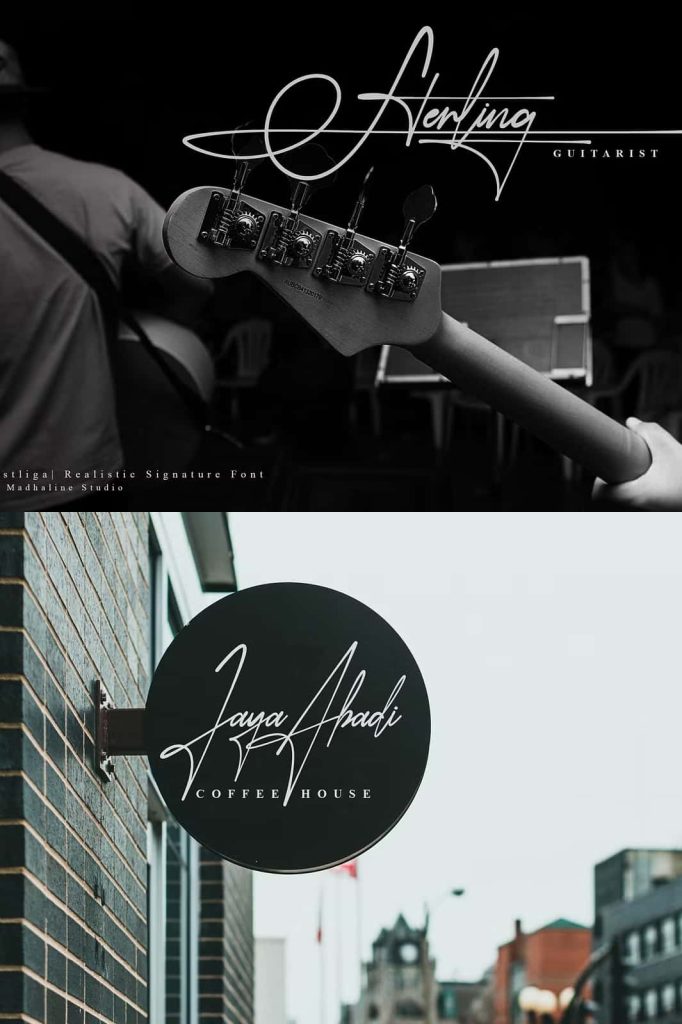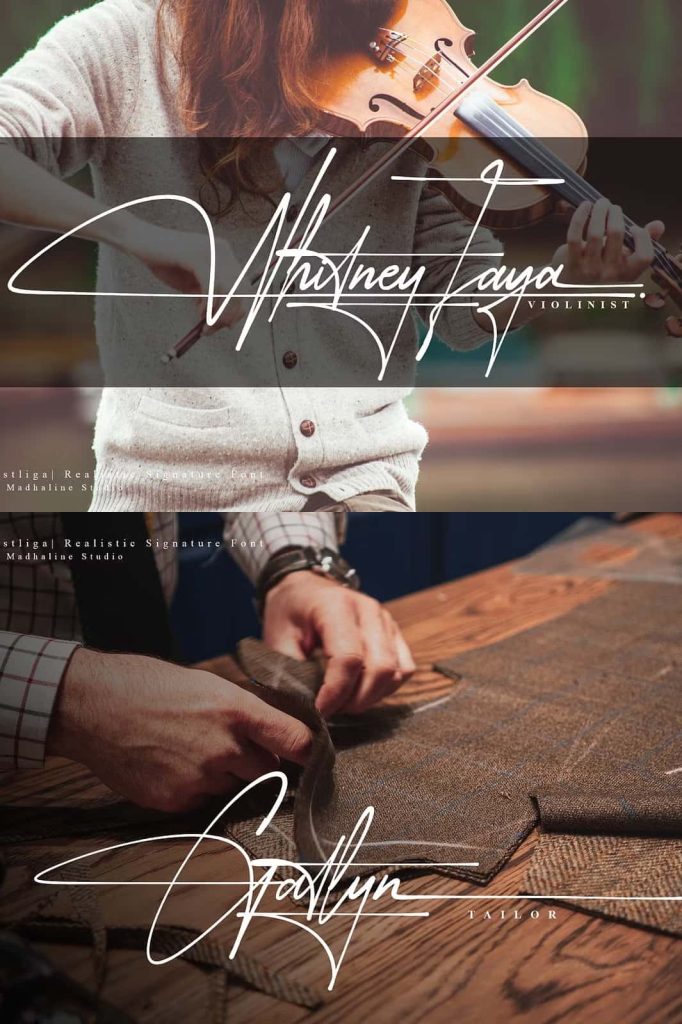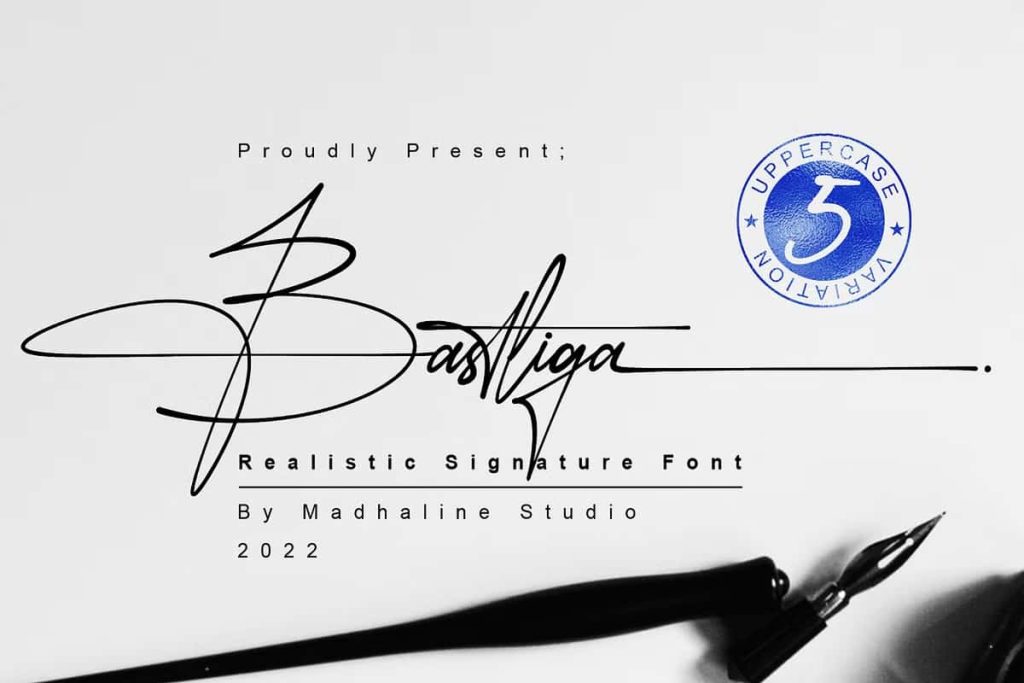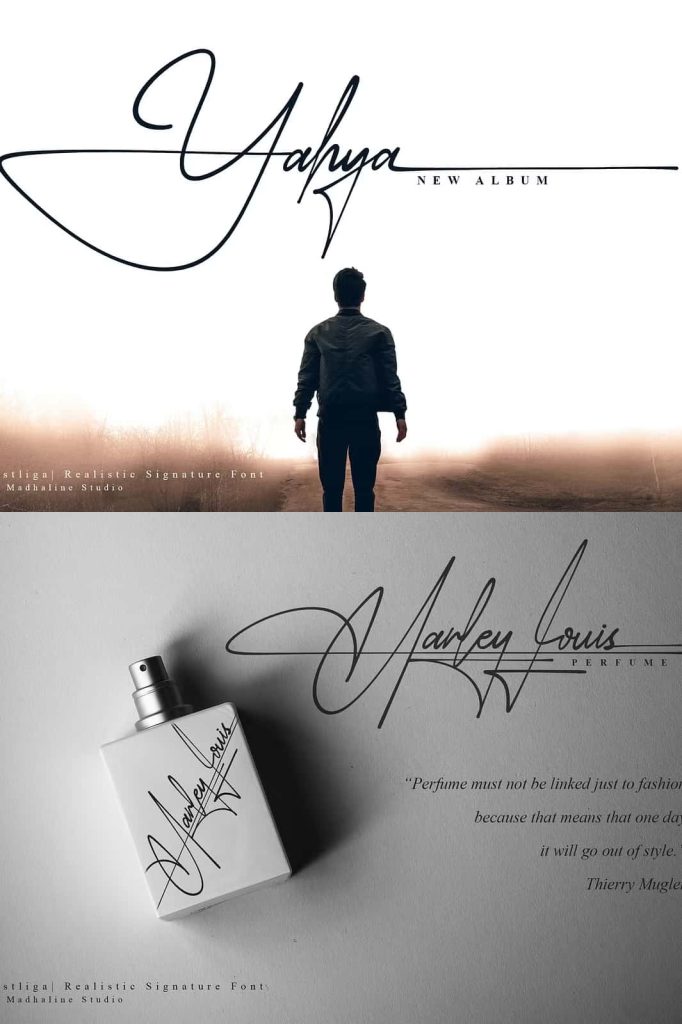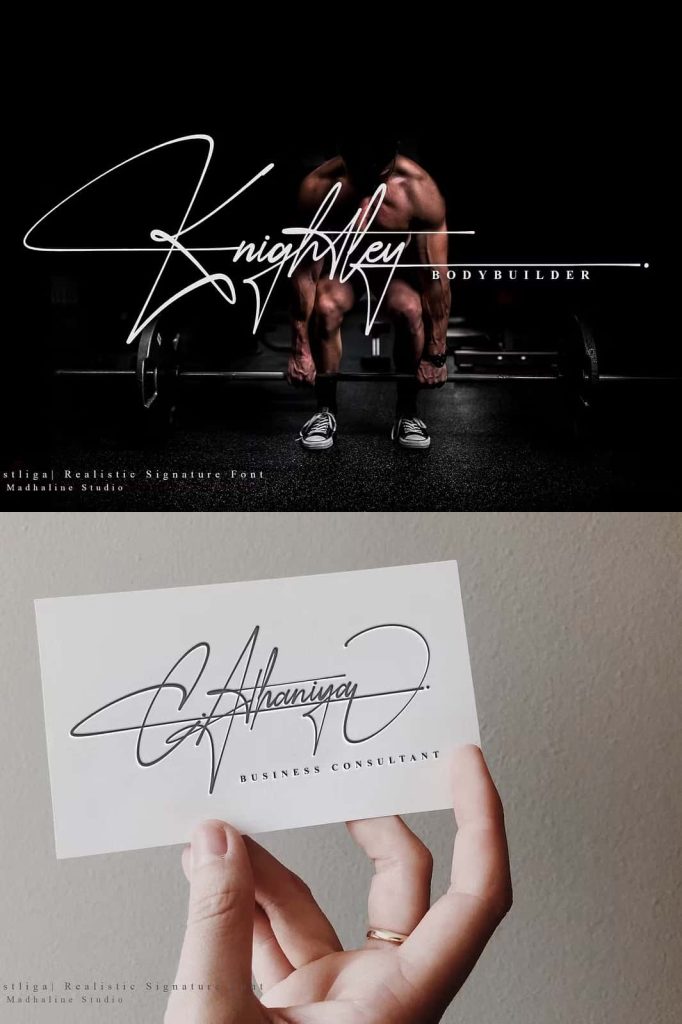
Bastliga Signature Font
Bastliga is a sophisticated handwritten signature font designed to deliver elegance, authenticity, and timeless style. Carefully created by hand, this premium typeface captures the natural flow of a genuine handwritten signature while incorporating refined modern details that make it suitable for professional branding and creative design projects.
Unlike ordinary script fonts, Bastliga preserves the subtle imperfections and smooth movement found in real handwriting. Every letter has been thoughtfully crafted to create an authentic signature appearance, allowing designers to produce work that feels personal, luxurious, and highly professional. Whether you’re building a premium brand identity, designing elegant wedding invitations, or adding a stylish watermark to photography, Bastliga provides the perfect finishing touch.
Its graceful strokes, balanced proportions, and natural handwriting style make Bastliga a versatile typeface that enhances both digital and print projects with effortless sophistication.
A Beautifully Handwritten Signature Typeface
Bastliga was created with the goal of replicating the elegance of a genuine handwritten signature. Every character has been manually drawn to preserve the natural rhythm, movement, and individuality that make handwritten typography so appealing.
Rather than appearing mechanical or overly polished, Bastliga embraces subtle organic details that give every word warmth and authenticity. This handcrafted approach allows your designs to communicate professionalism while maintaining a personal and approachable feel.
The result is a signature font that looks refined enough for luxury branding while remaining versatile enough for everyday creative projects.
Modern Elegance with Timeless Appeal
Bastliga blends classic handwritten beauty with contemporary design principles. The flowing letterforms create an elegant visual rhythm that complements modern branding, minimalist layouts, and luxury marketing materials.
Its clean structure and graceful curves help establish a premium appearance without becoming overly decorative. This balance makes Bastliga suitable for businesses, entrepreneurs, photographers, and designers who want typography that feels stylish, confident, and sophisticated.
Whether displayed on business cards, websites, or premium packaging, Bastliga consistently communicates quality and attention to detail.
Perfect for Luxury Branding
Typography plays an essential role in building memorable brand identities, and Bastliga provides the elegance needed to create a lasting impression. Its authentic handwritten style helps businesses establish trust while communicating creativity and exclusivity.
This signature font is an excellent choice for:
- Luxury brand identities
- Business logos
- Fashion branding
- Beauty product packaging
- Jewelry branding
- Perfume labels
- Boutique businesses
- Personal branding
- Creative agencies
- Lifestyle brands
The font pairs beautifully with modern serif and minimalist sans serif typefaces, allowing designers to create sophisticated branding systems with ease.
Ideal for Photography Watermarks
Photographers often require a signature font that reflects professionalism without distracting from their work. Bastliga offers the perfect solution with its natural handwritten appearance and elegant flow.
Its refined style creates tasteful watermarks that protect images while reinforcing your personal brand. Whether used on wedding photography, portrait sessions, travel photography, or commercial work, Bastliga adds a polished and recognizable signature that complements every image.
The authentic handwritten look also helps establish a stronger connection between photographers and their clients.
Versatile for Creative Projects
Bastliga adapts effortlessly to a wide variety of creative applications. Its elegant signature style enhances both formal and casual projects, making it a valuable addition to any designer’s font collection.
Use Bastliga for:
- Wedding invitations
- Save the date cards
- Greeting cards
- Luxury packaging
- Product labels
- Stationery design
- Certificates
- Business cards
- Website headers
- Blog graphics
- Social media content
- Instagram quotes
- Advertising campaigns
- Editorial layouts
- Book covers
- Event branding
- Merchandise designs
- Promotional materials
- Personalized gifts
- Creative portfolios
Designed for Print and Digital Media
Bastliga performs beautifully across both digital and printed formats. Its carefully balanced spacing and smooth letter connections ensure excellent readability while maintaining its elegant handwritten personality.
Whether displayed on websites, product packaging, invitations, magazines, promotional materials, or social media graphics, the font consistently delivers professional results.
If you’re searching for a signature font that delivers luxury, authenticity, and timeless style, Bastliga is a valuable addition to your typography collection. Its handcrafted personality helps transform ordinary designs into refined visual experiences that leave a lasting impression across both print and digital media.